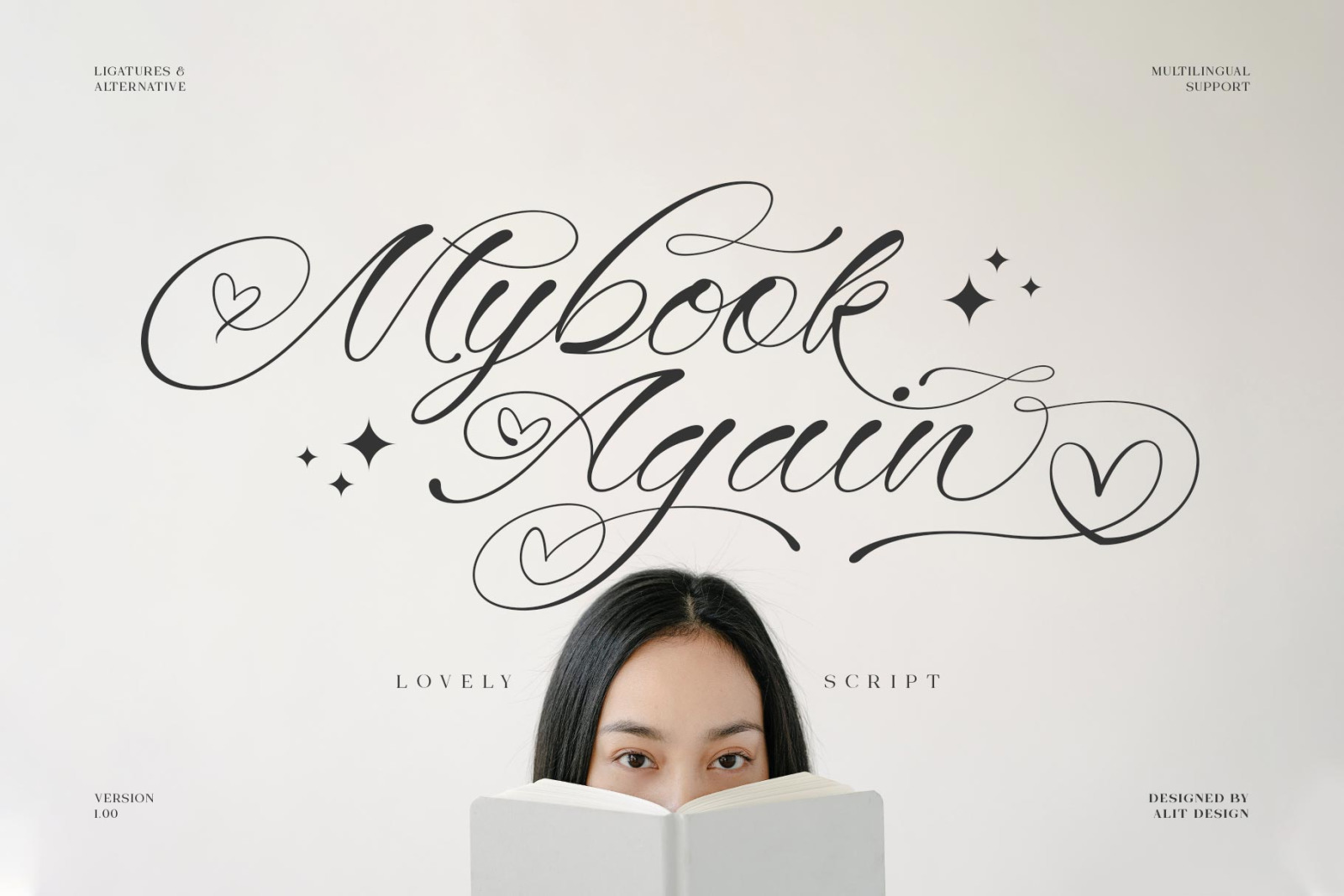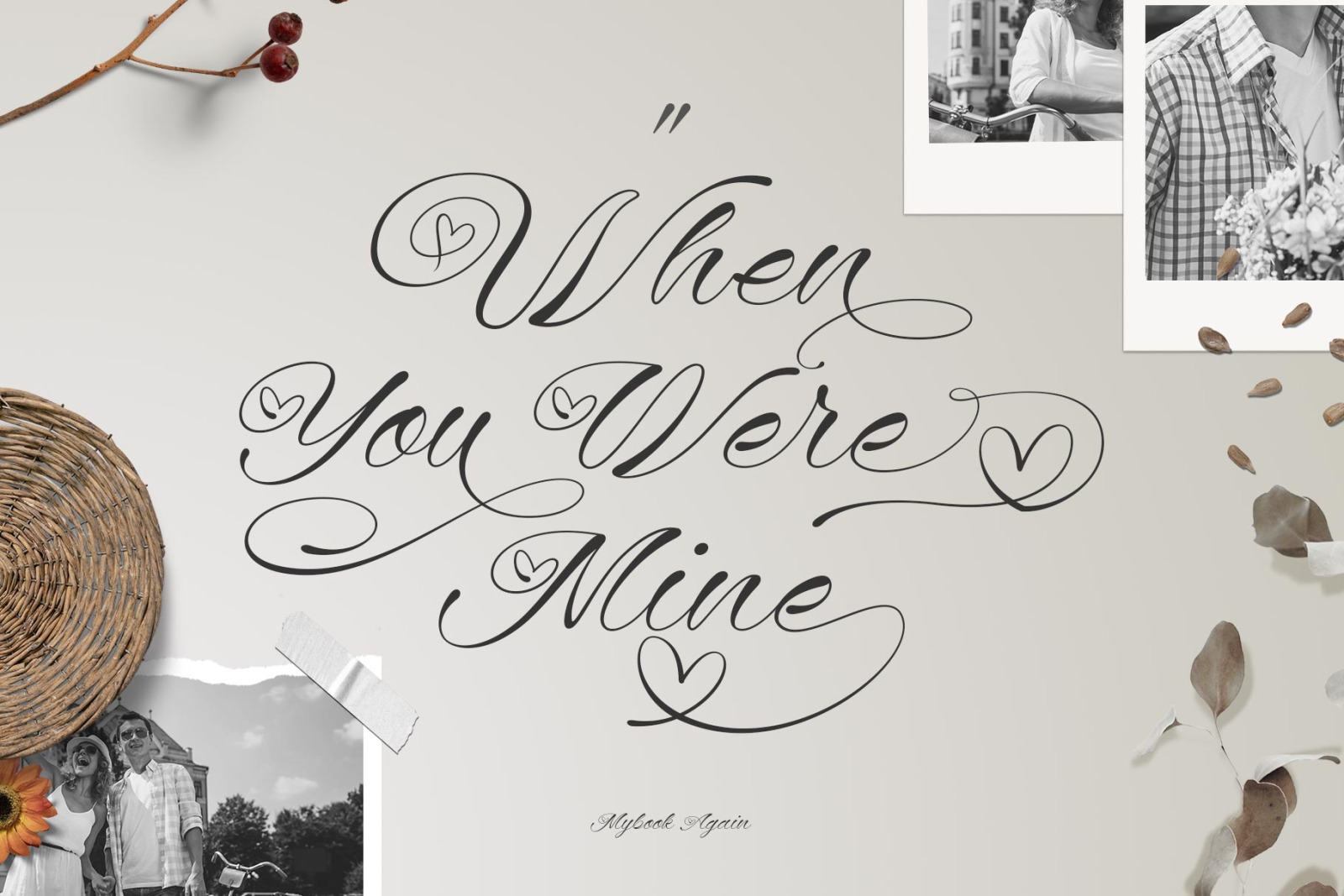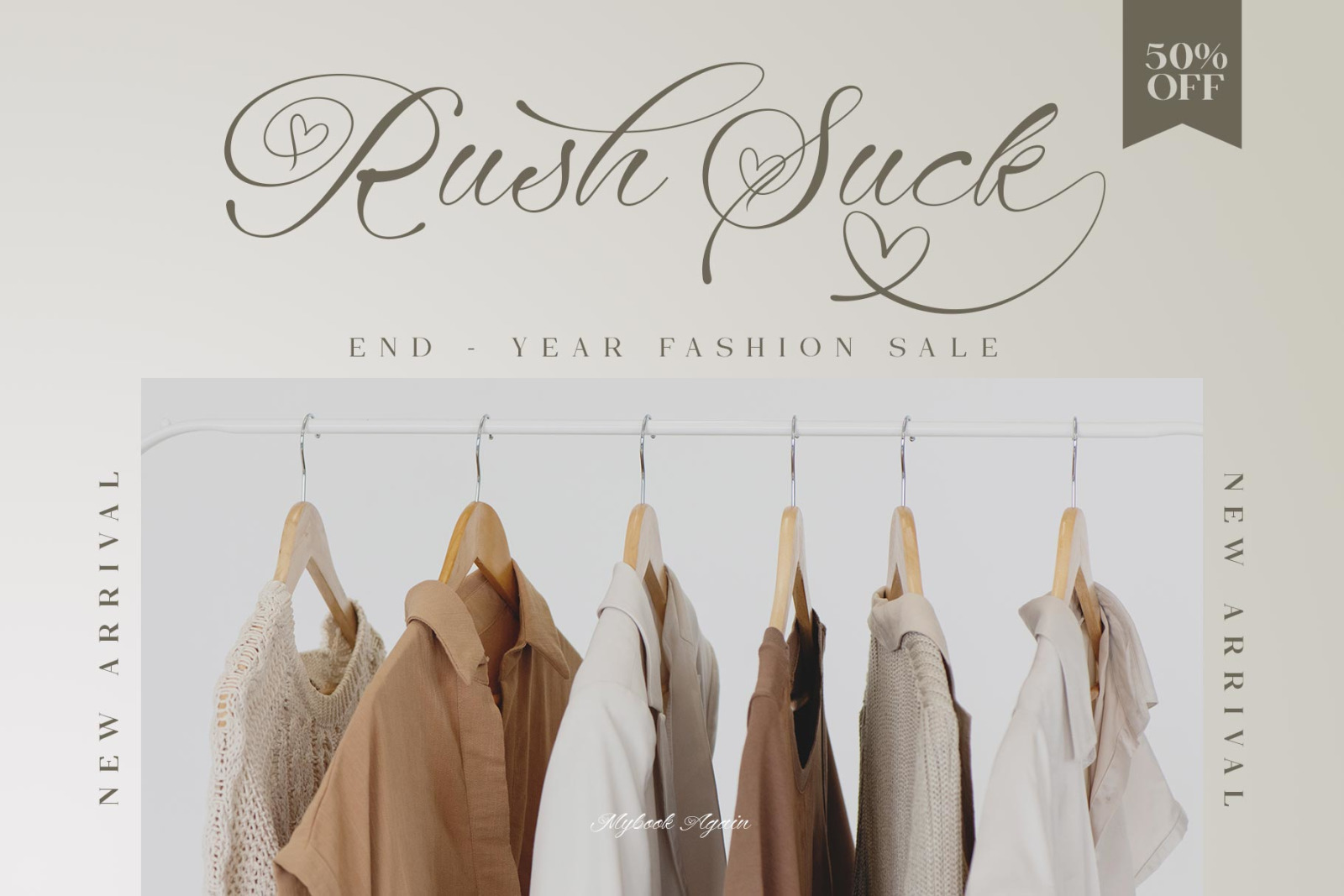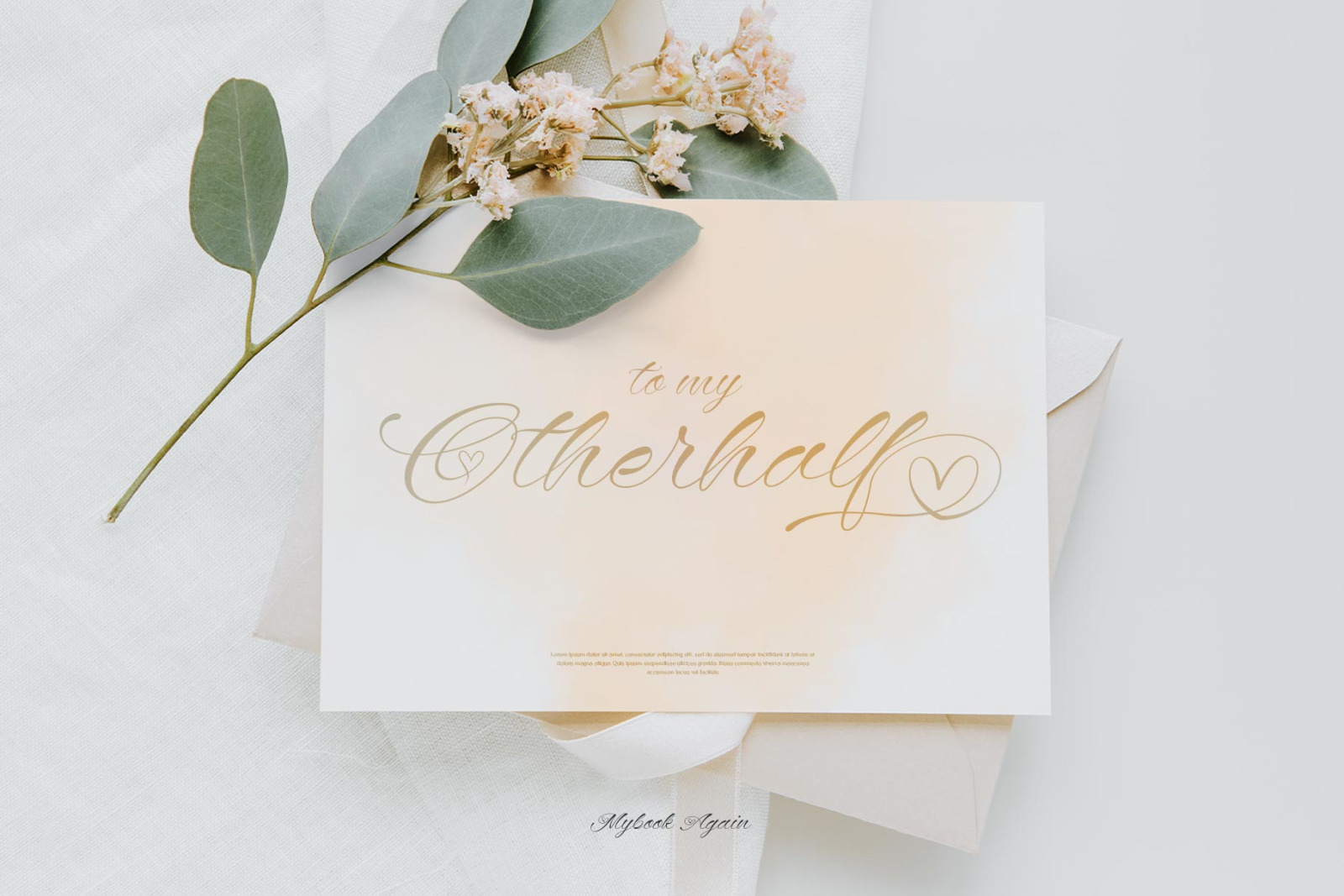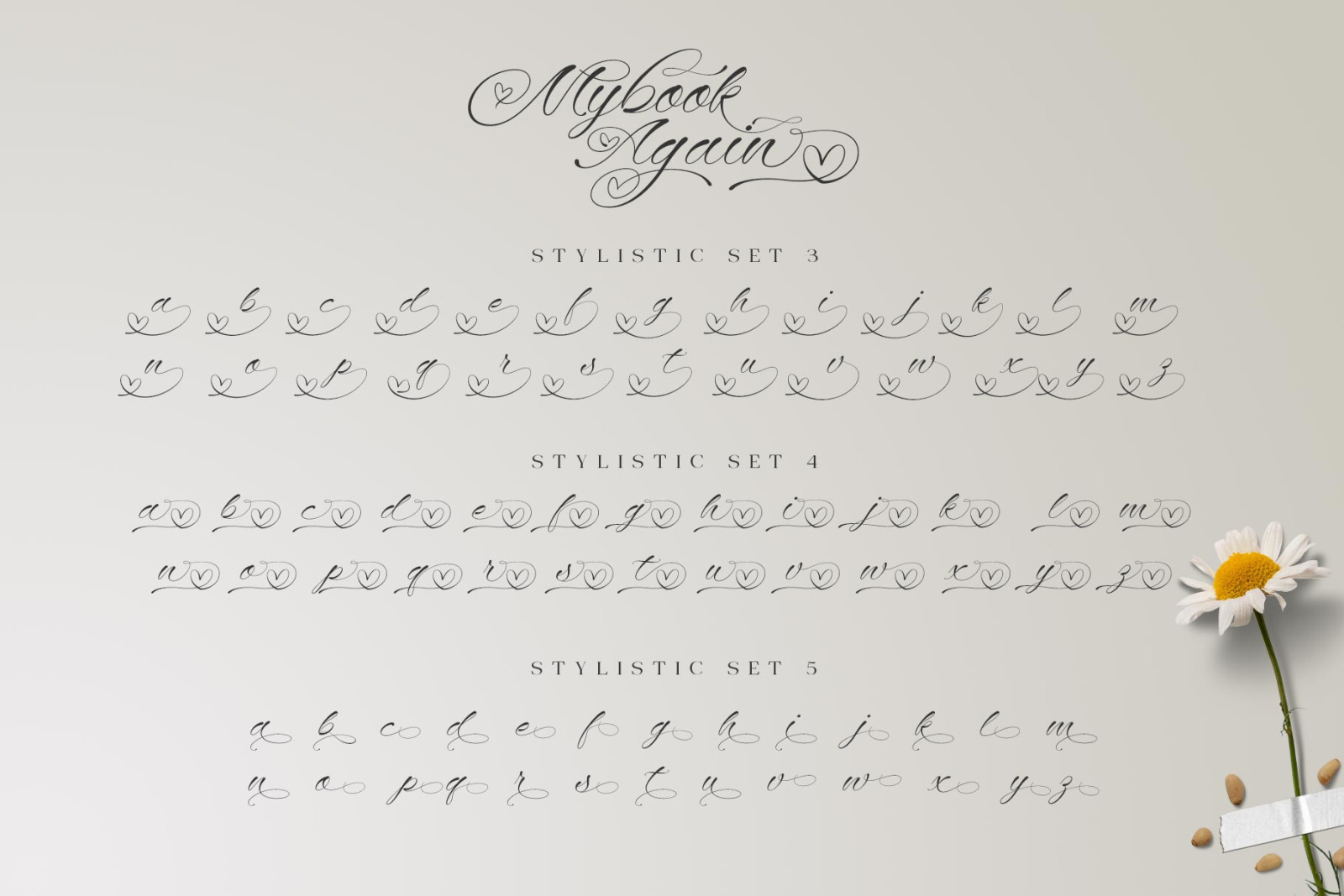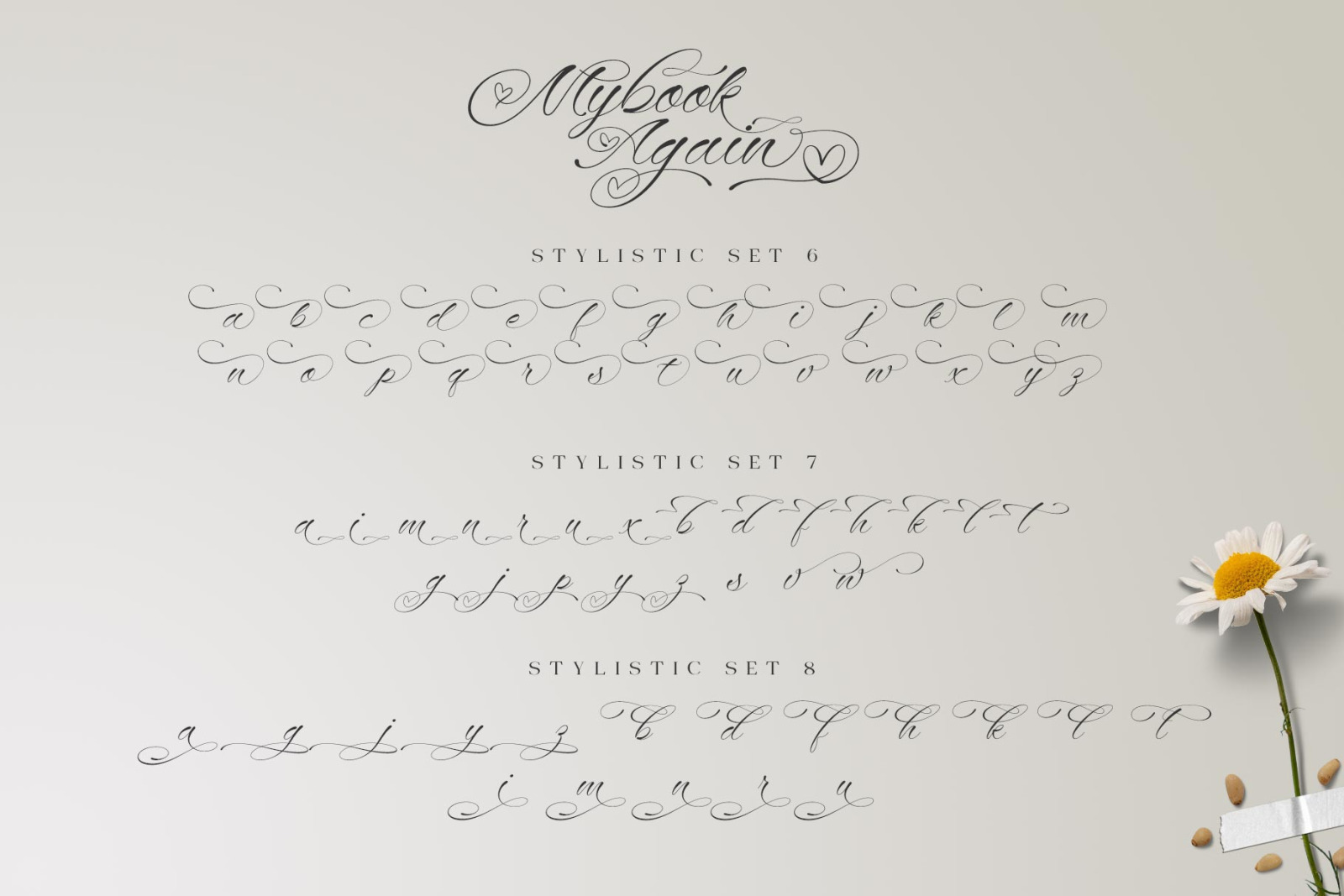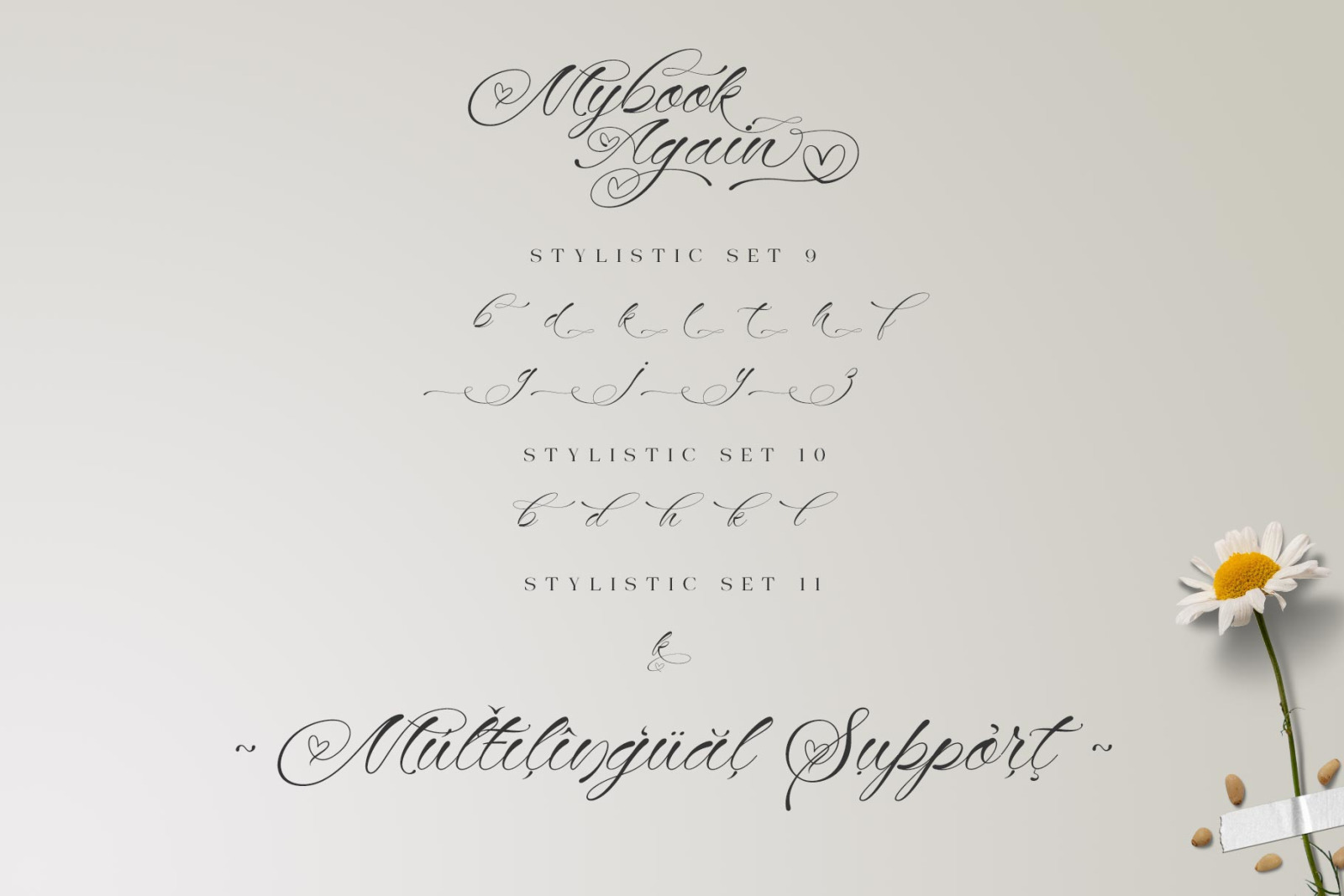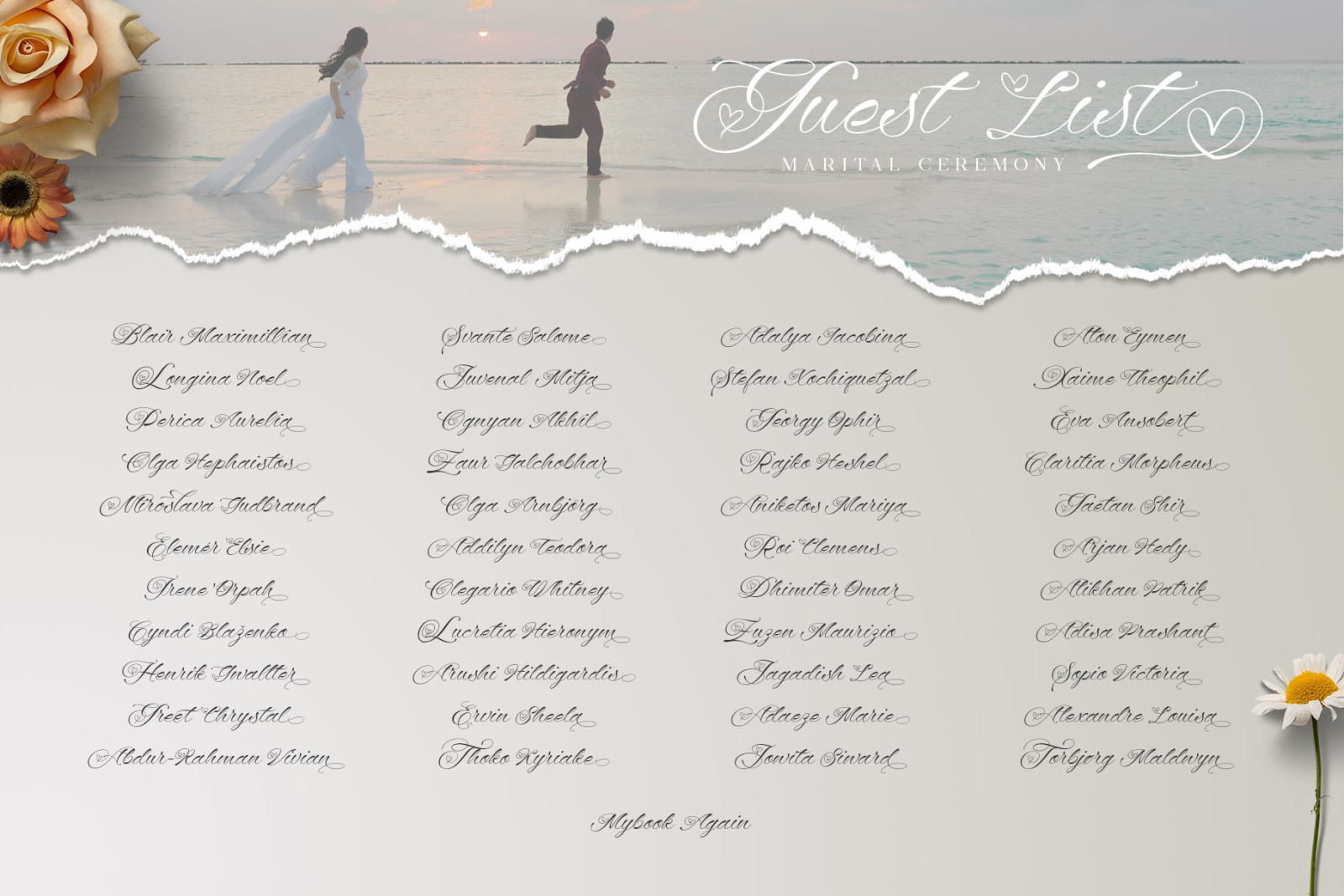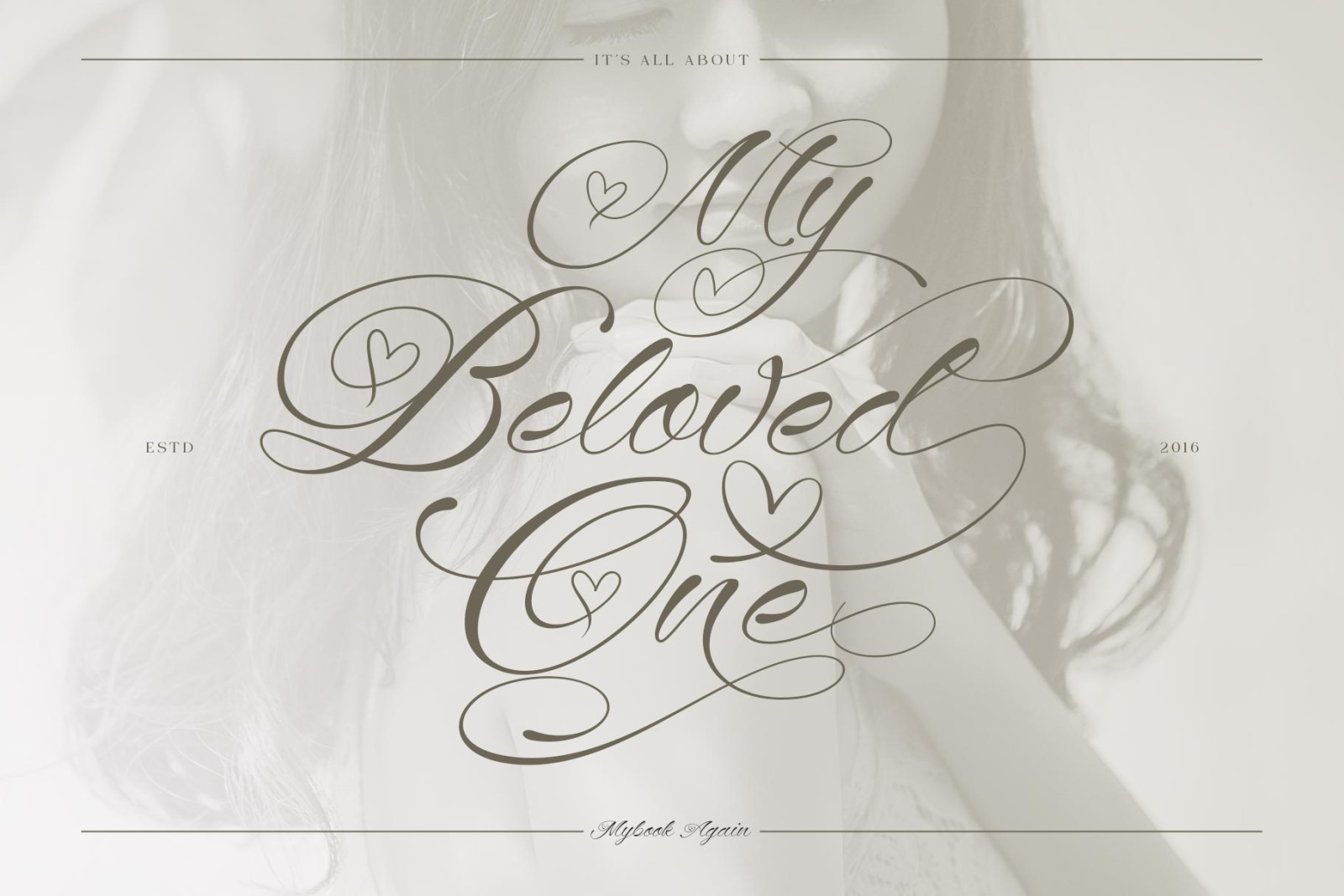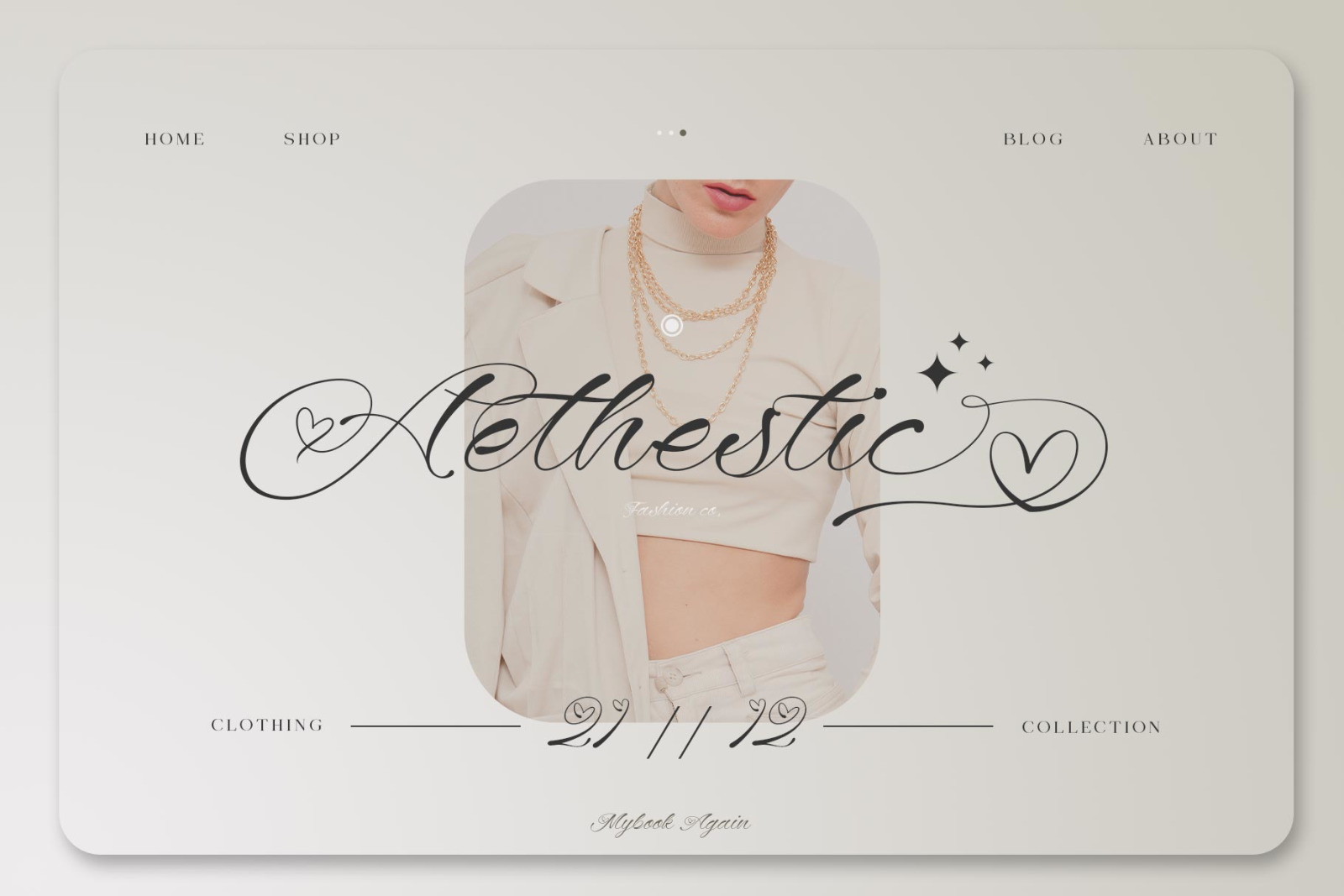
Mybook Again Romantic Script Font
Introducing Mybook Again Font
?The Mybook Again Romantic Script Font ? is valentines day inspired font made for romance theme. The Mybook Again Font adheres to a simple and elegant modern script style, besides that this font has a unique swash in the shape of a heart that can be used for unique love designs.
Very suitable for use in making greeting card designs, Instagram posts, logo designs, wedding texts, romance quotes and so on, the first is about love.